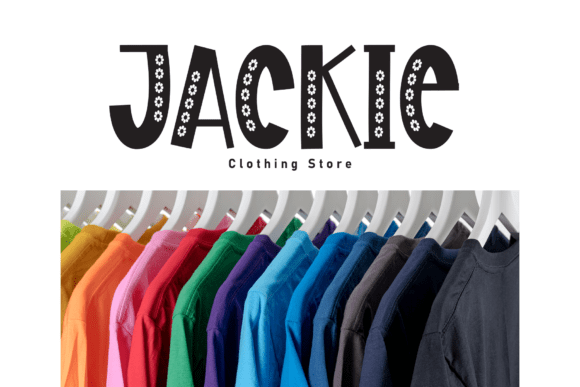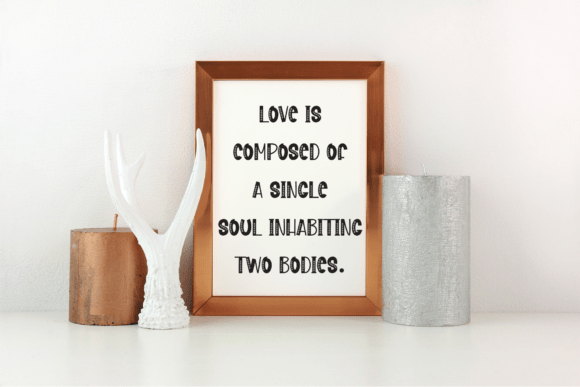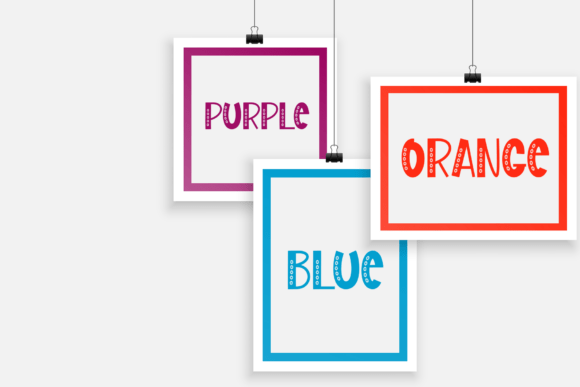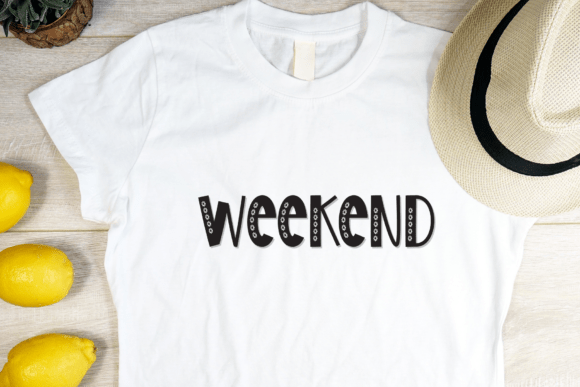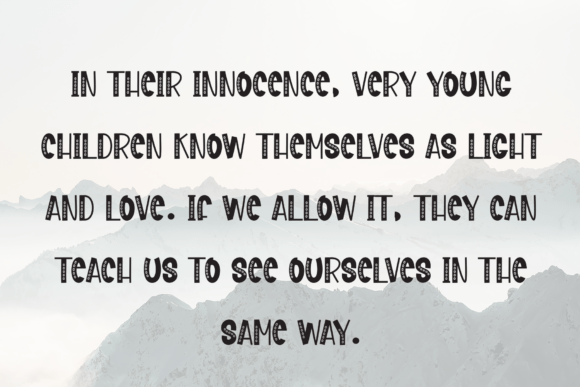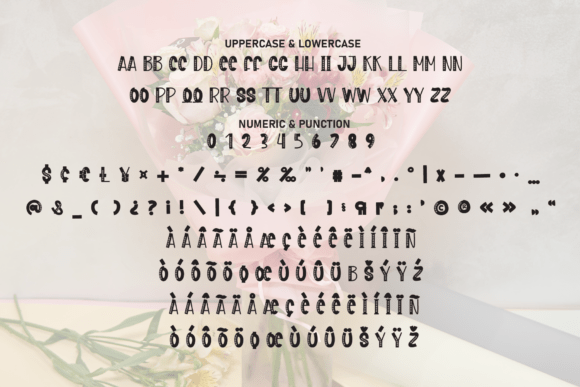
Introducing Bucket Flower Font: The Perfect Addition to Your Art Projects
Are you looking for a font that can add a touch of elegance and whimsy to your art projects? Look no further than the Bucket Flower Font, a meticulously hand-drawn display font that is sure to invigorate your designs. With its energetic exuberance and refined sophistication, this font is the perfect addition to any project that needs a sprinkle of joy and a dash of vibrant cheer.
The Charm of Bucket Flower Font
The Bucket Flower Font is a true delight, radiating warmth and satisfaction with every letter. Its hand-drawn design gives it a unique and charming quality that is sure to capture the hearts of designers and crafters alike. Whether you’re working on a wedding invitation, greeting card, or any other design project, this font is sure to add a touch of magic to your work.
A Perfect Blend of Elegance and Whimsy
One of the standout features of the Bucket Flower Font is its ability to skillfully marry elegance with a hint of whimsy. This perfect blend of refinement and playfulness makes it an ideal choice for designers who want to add a touch of sophistication to their work without sacrificing creativity. Whether you’re looking to create a formal and elegant design or a more playful and whimsical one, this font is sure to deliver.
Ideal for a Variety of Design Projects
The Bucket Flower Font is incredibly versatile, making it suitable for a wide range of design projects. Here are just a few ideas to get you started:
- Wedding Invitations: Add a touch of romance and elegance to your wedding invitations with this beautiful font.
- Greeting Cards: Create heartfelt and personalized greeting cards for special occasions like birthdays, anniversaries, and holidays.
- Stationery: Add a touch of whimsy and sophistication to your stationery with this delightful font.
- Signs and Banners: Create eye-catching signs and banners for events, parties, and promotions.
Why Choose Bucket Flower Font?
So why choose the Bucket Flower Font for your next design project? Here are just a few reasons:
- Unique and Hand-Drawn: This font is meticulously hand-drawn, giving it a unique and charming quality that sets it apart from other fonts.
- Versatile: Suitable for a wide range of design projects, from formal and elegant to playful and whimsical.
- Elegant and Whimsical: Skillfully marries elegance with a hint of whimsy, making it perfect for designers who want to add a touch of sophistication to their work.
Tips for Using Bucket Flower Font
Here are a few tips for using the Bucket Flower Font in your design projects:
- Experiment with Sizes: Try out different font sizes to see how the Bucket Flower Font looks in different contexts.
- Pair with Other Fonts: Experiment with pairing this font with other fonts to create a unique and eye-catching design.
- Use in Combination with Images: Use the Bucket Flower Font in combination with images to add a touch of elegance and whimsy to your design.
In conclusion, the Bucket Flower Font is a truly delightful font that is sure to add a touch of magic to your design projects. With its unique and hand-drawn design, elegant and whimsical style, and versatility, this font is perfect for designers and crafters who want to create beautiful and eye-catching designs. So why wait? Download the Bucket Flower Font today and experience the charming fascination of this quintessential font for yourself!